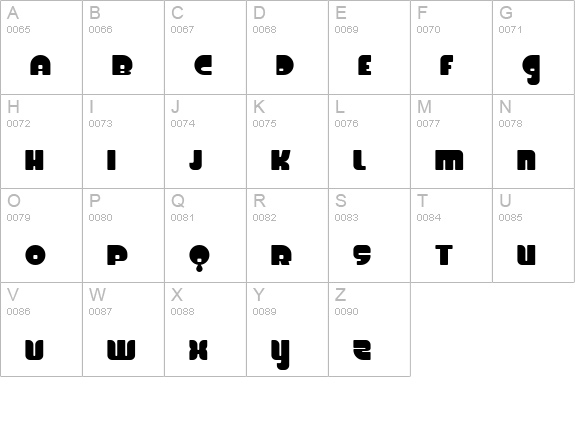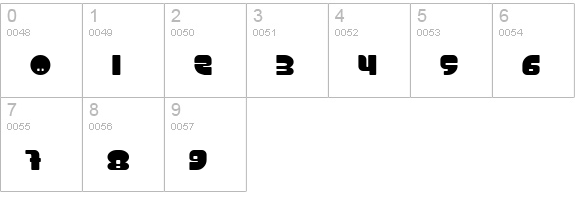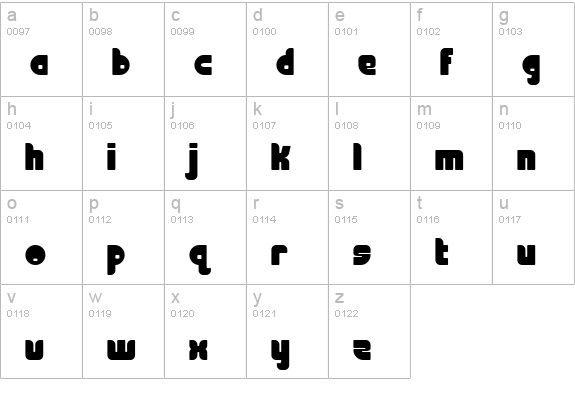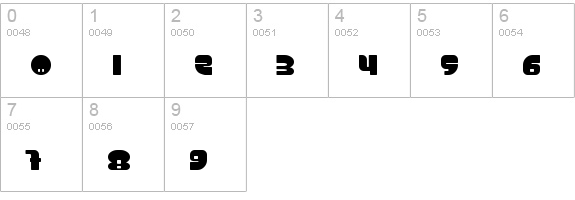
FineOMite Font Details
FineOMite font is a modern and stylish typeface that exudes elegance and sophistication. Its sleek lines and sharp edges make it perfect for adding a touch of class to any design project. Whether you're creating a logo, a poster, or a website, FineOMite font is sure to make your text stand out. What sets FineOMite font apart is not just its striking appearance, but also the fact that it is completely free to download. That's right, you can get your hands on this premium font without spending a dime. Simply head over to FontsMarket.com to access this versatile typeface and take your designs to the next level. With FineOMite font, you can unleash your creativity and bring your ideas to life with a touch of sophistication. So why wait? Download FineOMite font today and start creating stunning designs that leave a lasting impression.